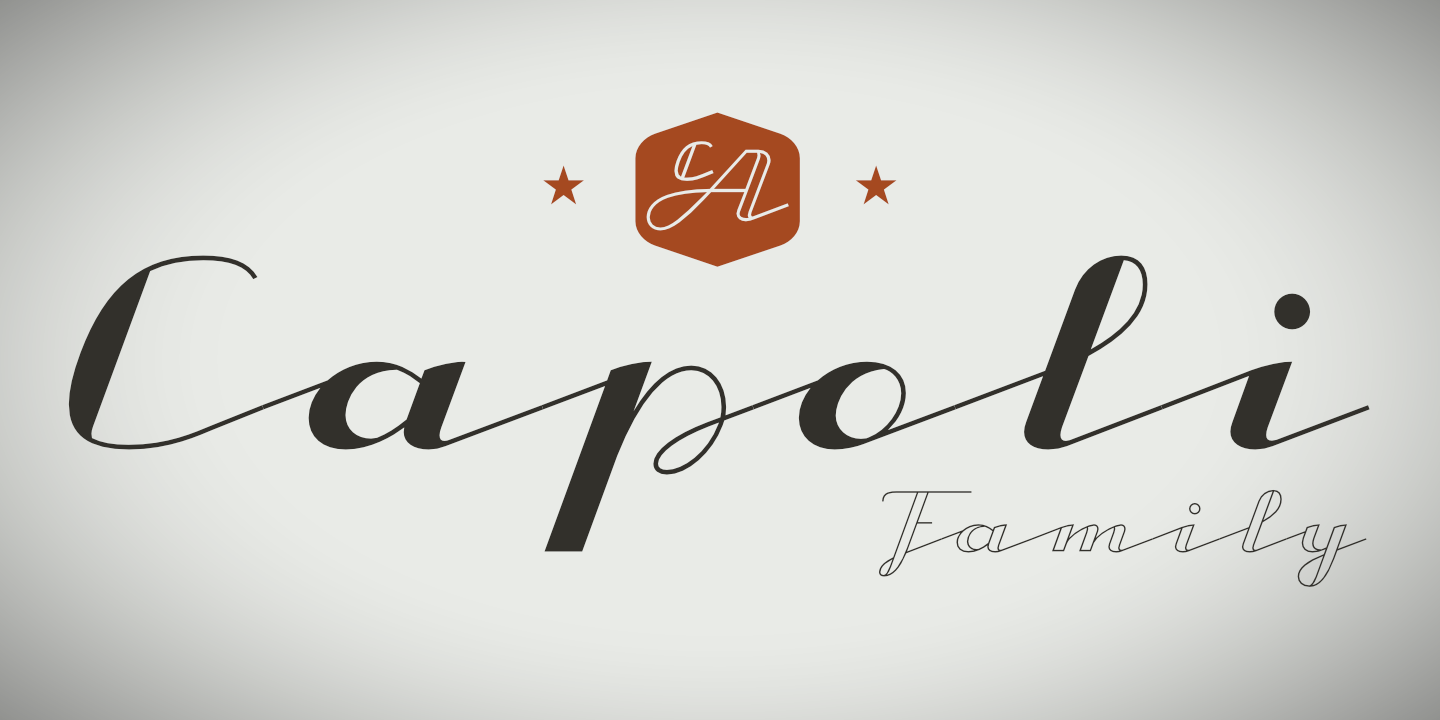
CA Capoli Font is perfect for sophisticated corporate branding, elegant professional presentations, refined business communications, upscale financial services, premium consulting firms, distinguished law offices, executive leadership materials, and authoritative institutional identities. This distinguished typeface excels in professional environments, corporate applications, and any project requiring executive sophistication that communicates business authority and professional excellence through refined corporate elegance.
What makes CA Capoli Font exciting is its exceptional ability to embody corporate sophistication and professional authority through meticulously crafted letterforms that convey executive confidence and business credibility with refined elegance. The font features professionally designed characters with corporate curves and authoritative proportions that evoke feelings of business trust and executive sophistication, making it ideal for brands seeking to establish professional connections and communicate through refined corporate visual language. Its executive presence ensures immediate recognition of business authenticity and professional excellence.
CA Capoli Font family includes multiple weights and styles: Regular, Bold, Light, Medium, Italic variations, and corporate alternates with professional embellishments and executive decorative elements. Each family member maintains the distinctive corporate character while offering comprehensive design options for business campaigns, from professional informational text to commanding executive headlines that establish corporate authority and business credibility through sophisticatedly refined typography.
Whether you're designing corporate brand identities or creating professional business campaigns, CA Capoli Font Free Download provides the perfect typography solution for executive branding needs. This font transforms ordinary text into sophisticated corporate statements that communicate professional authority and business excellence. Corporate consulting firms and executive leadership organizations choose this typeface for its ability to convey corporate sophistication through professionally crafted letterforms that lead through designs with executive confidence and celebrate the refined elegance of professional business communication.